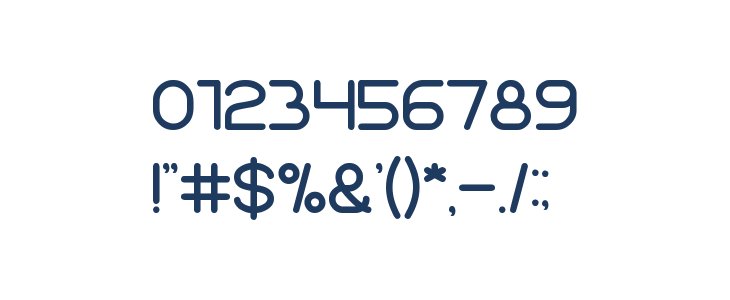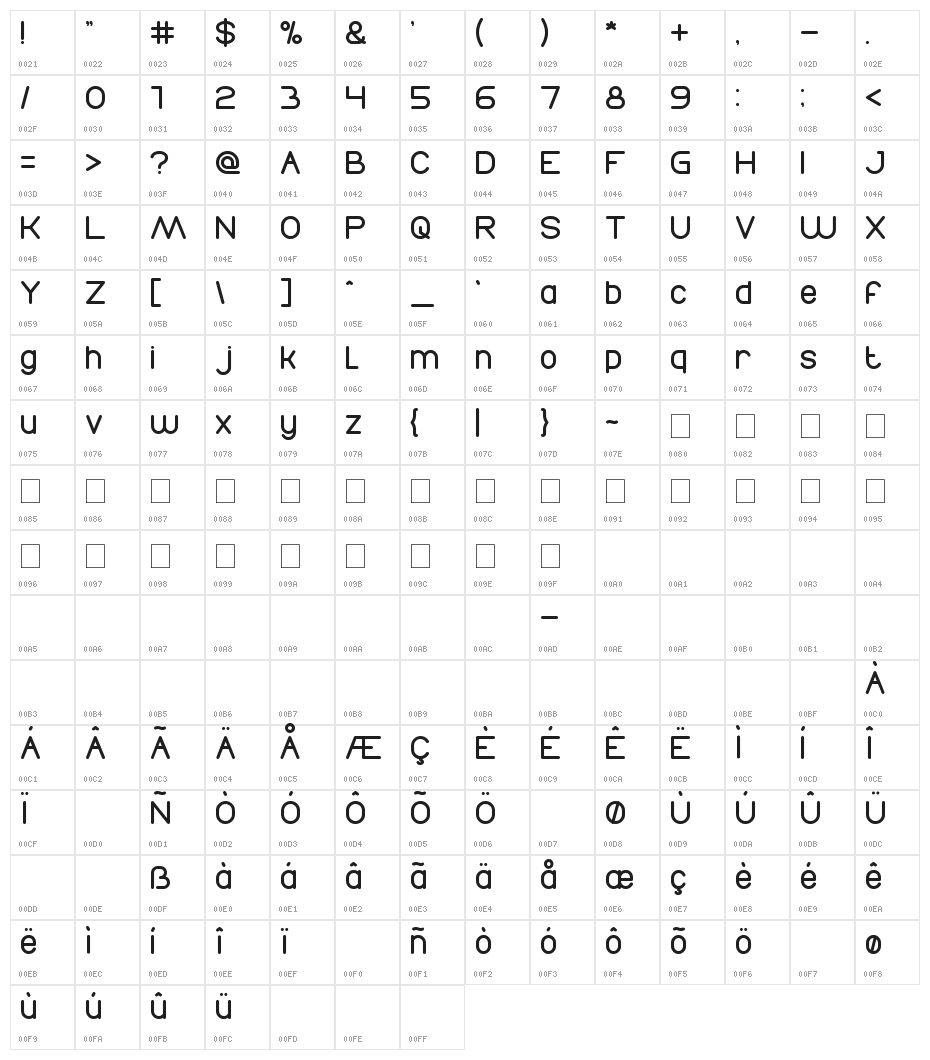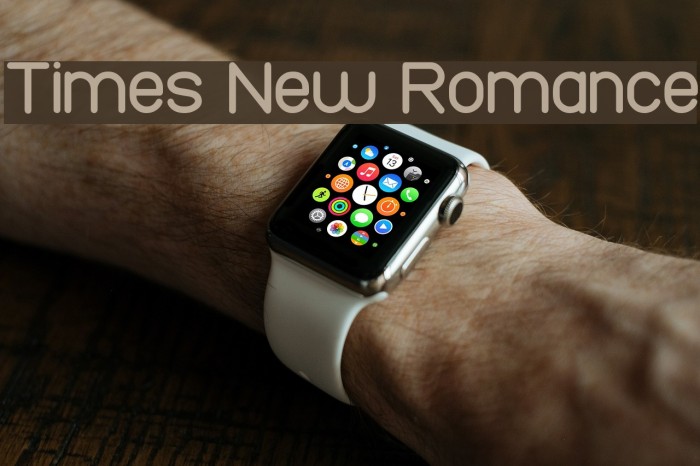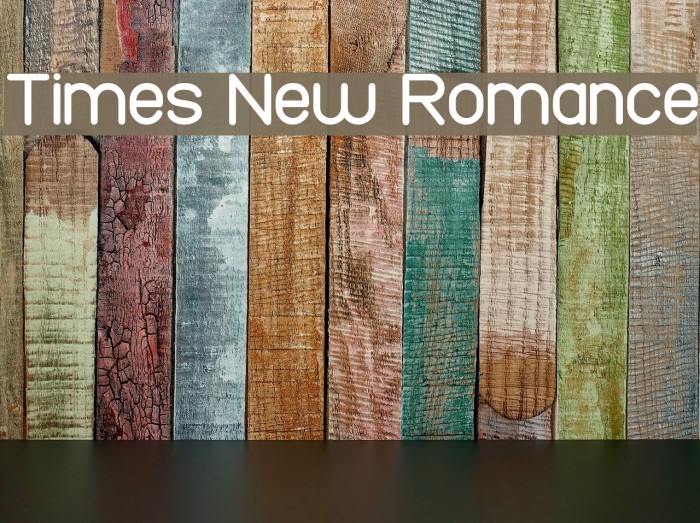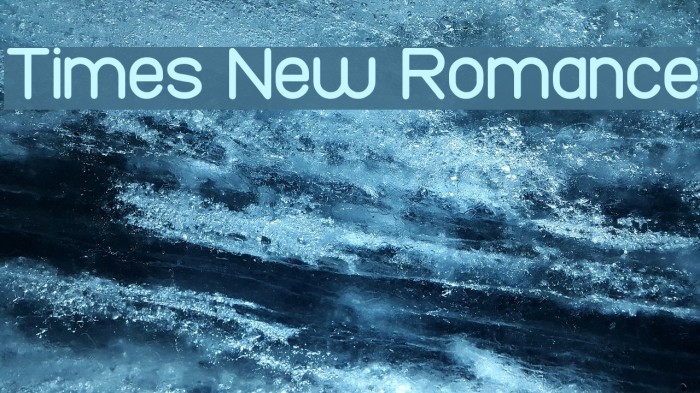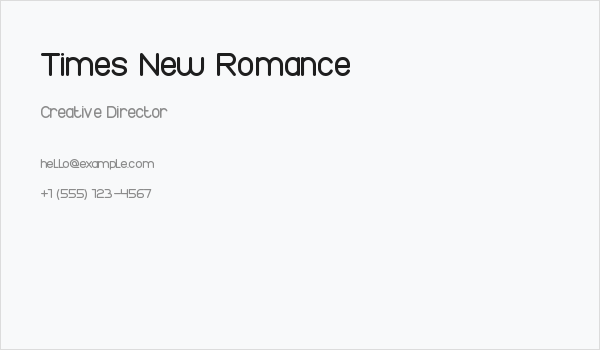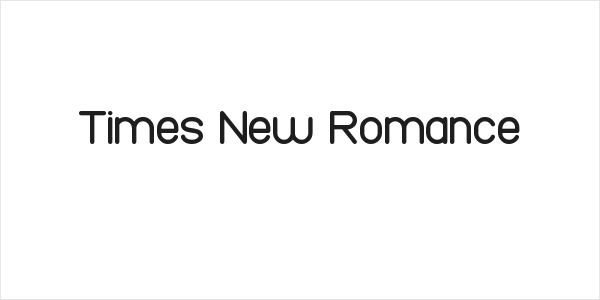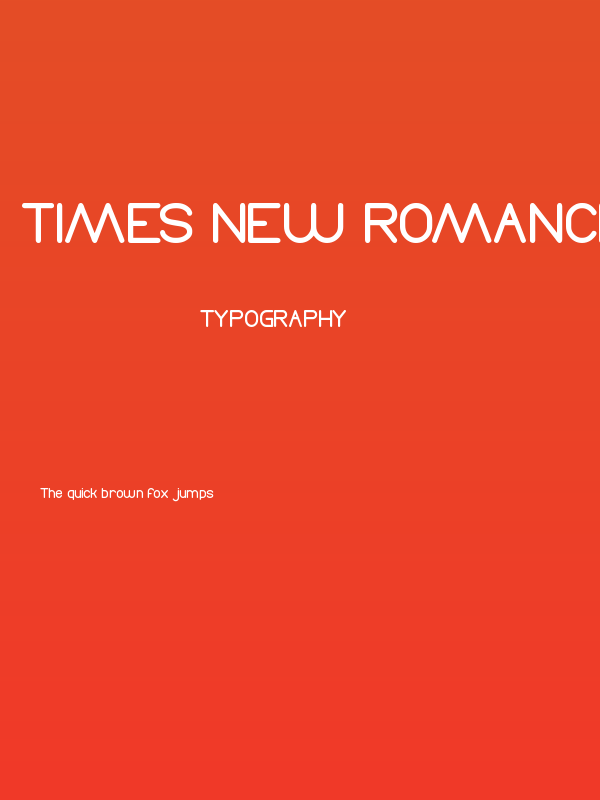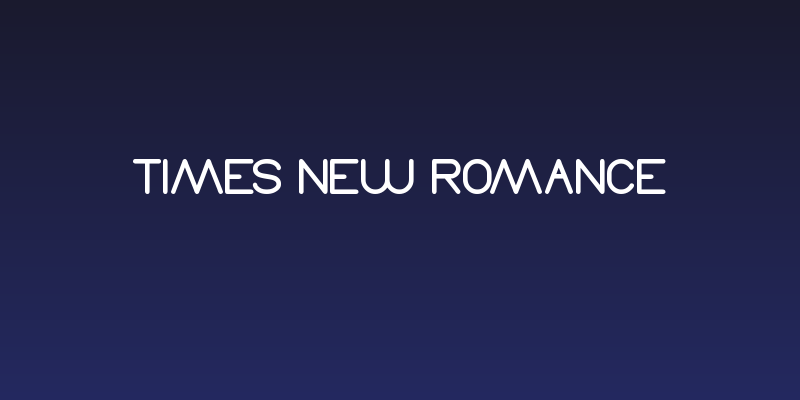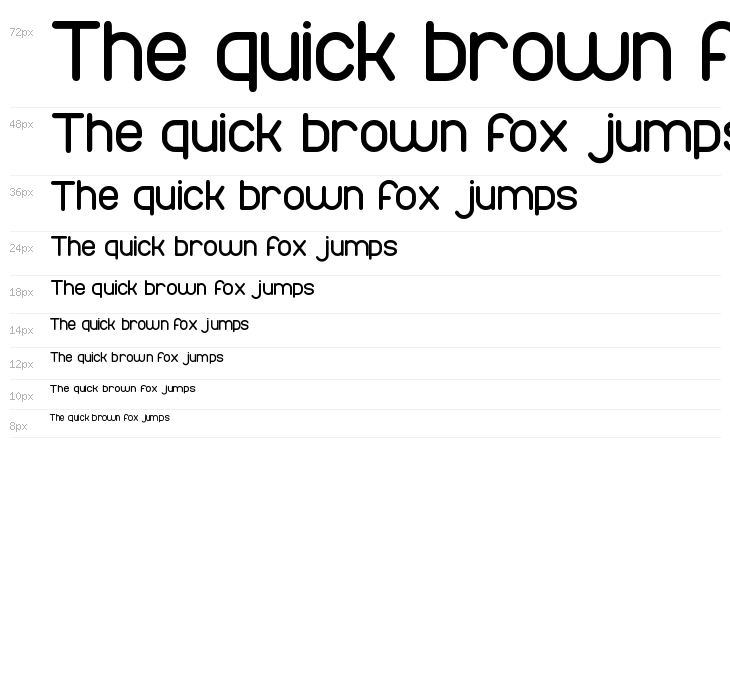
Times New Romance Font
Times New Romance Description
This font features a modern, rounded sans-serif style with clean lines and a uniform stroke width. The characters are well-balanced, offering a smooth and approachable appearance. The uppercase letters maintain a consistent height, while the lowercase letters are slightly shorter, providing a harmonious flow. The numerals are clear and distinct, making them easily readable. Special characters are designed to complement the overall aesthetic, ensuring versatility in various applications. The font's simplicity and clarity make it suitable for both digital and print media.